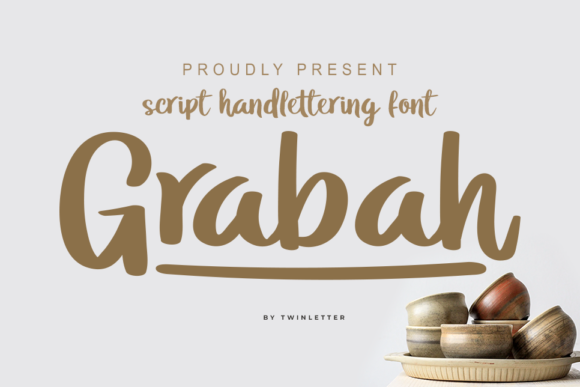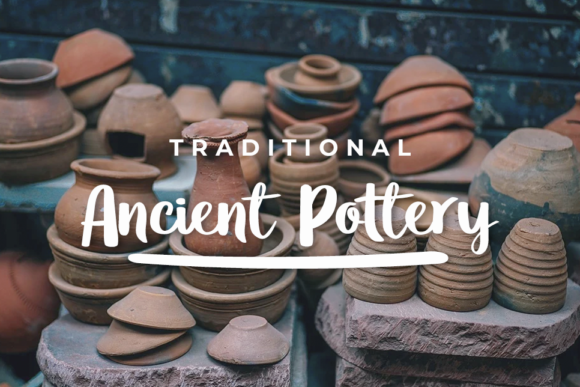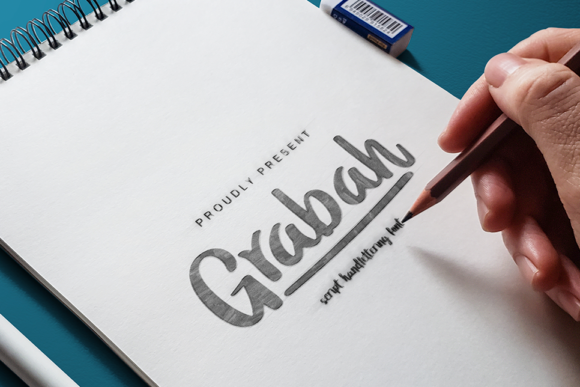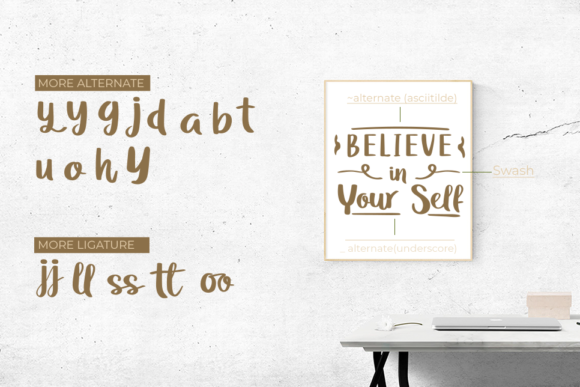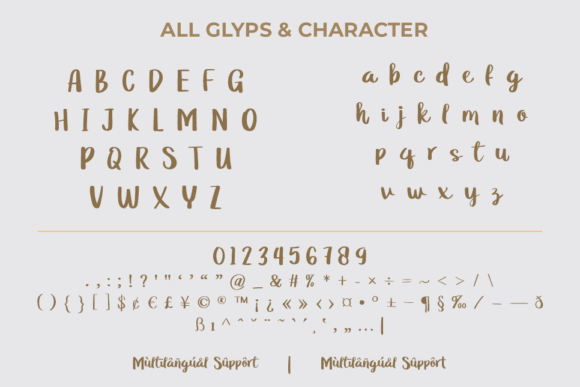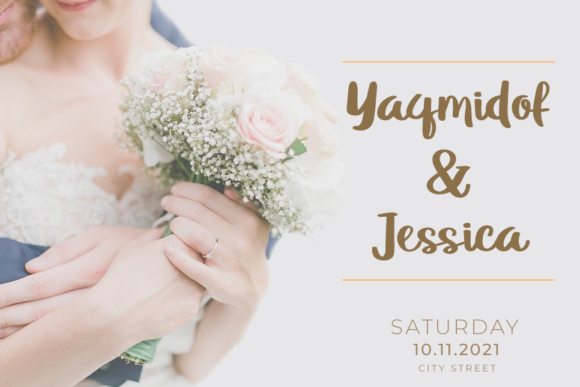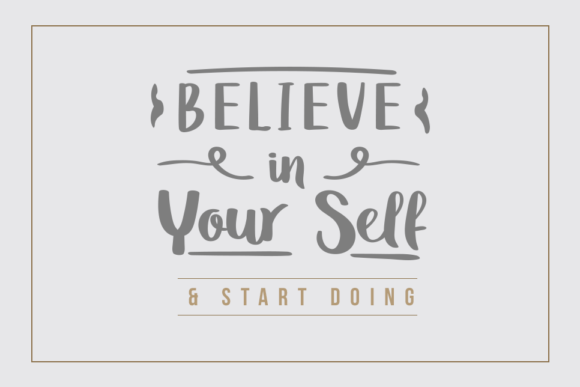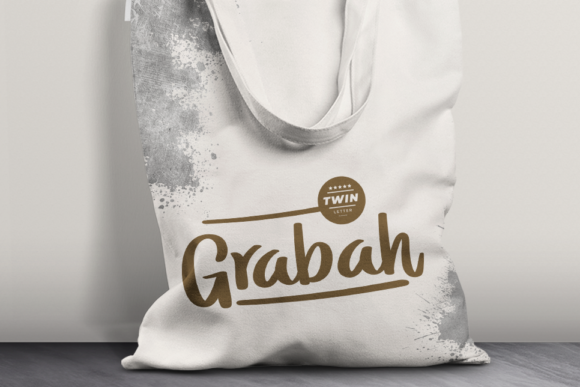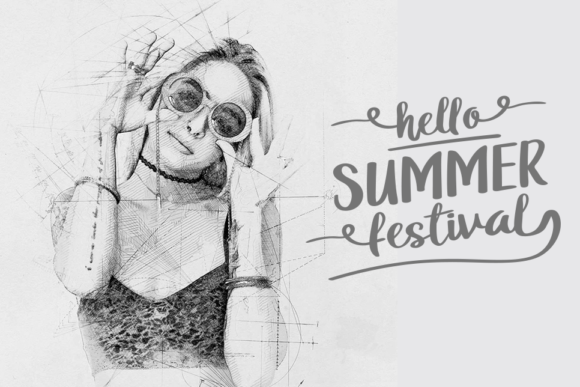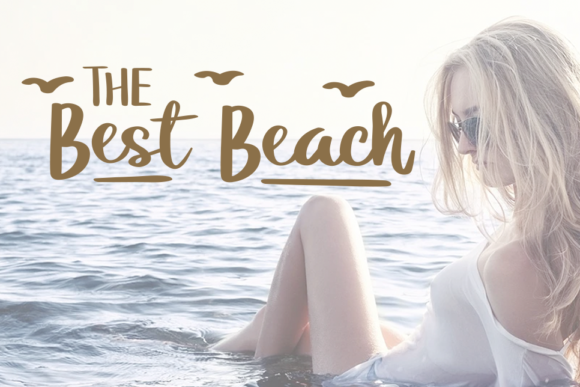
Grabah Font
About Grabah Font
Grabah features an elegant and friendly style. Use this beautiful handwritten font to elevate a wide range of design projects to the highest level, be it branding, headings, wedding designs, invitations, signatures, logos, labels, and much more!